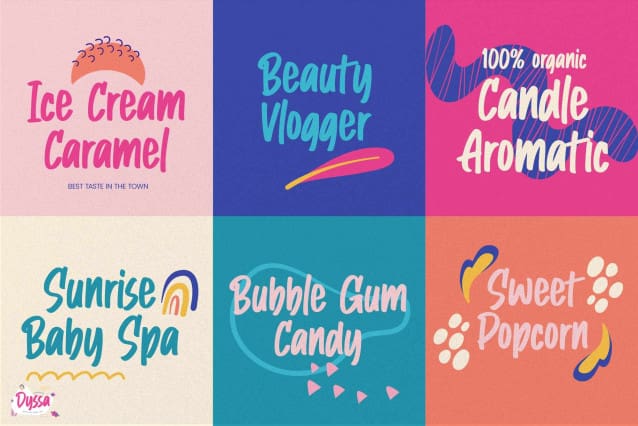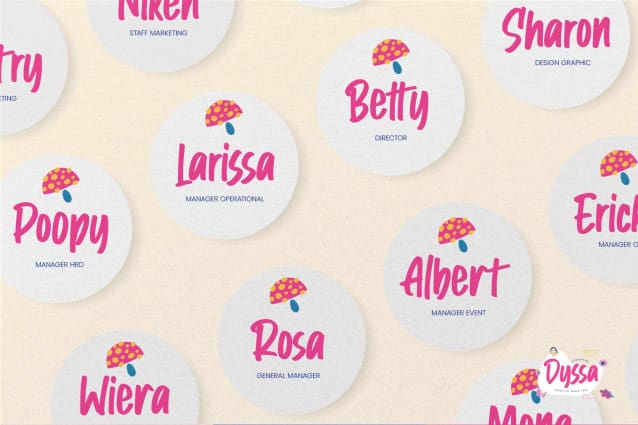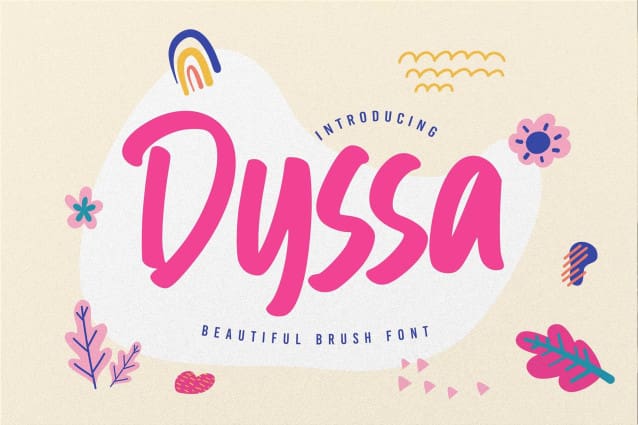
Dyssa Brush Font
Dyssa Brush Font – This is a Beautiful Brush Font, this is a handmade font with more alternates and brush font, this font is perfect for making a strong statement in your designs.